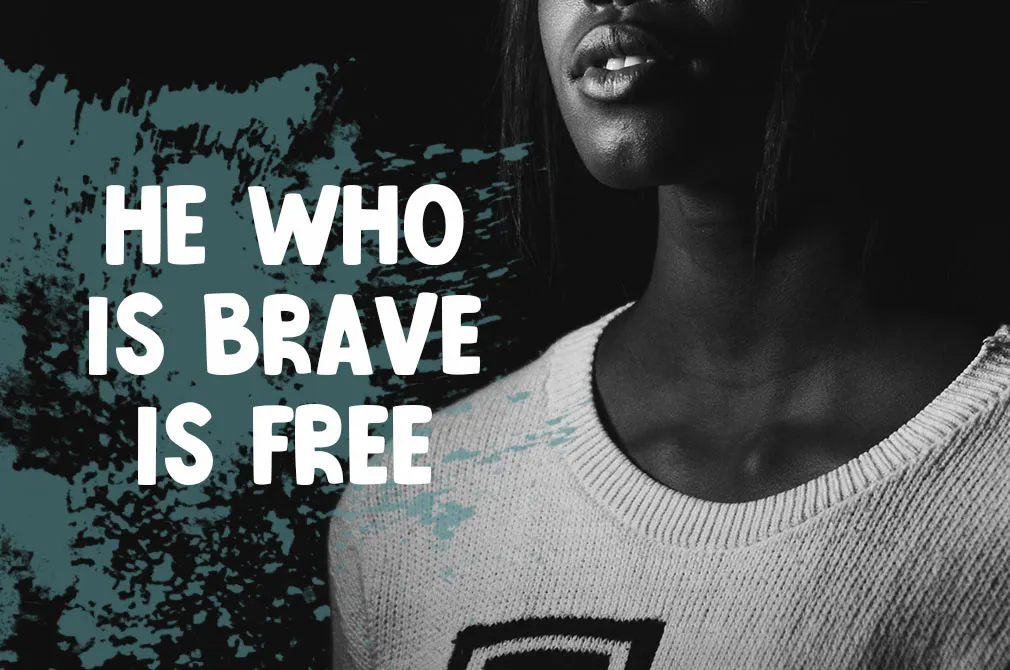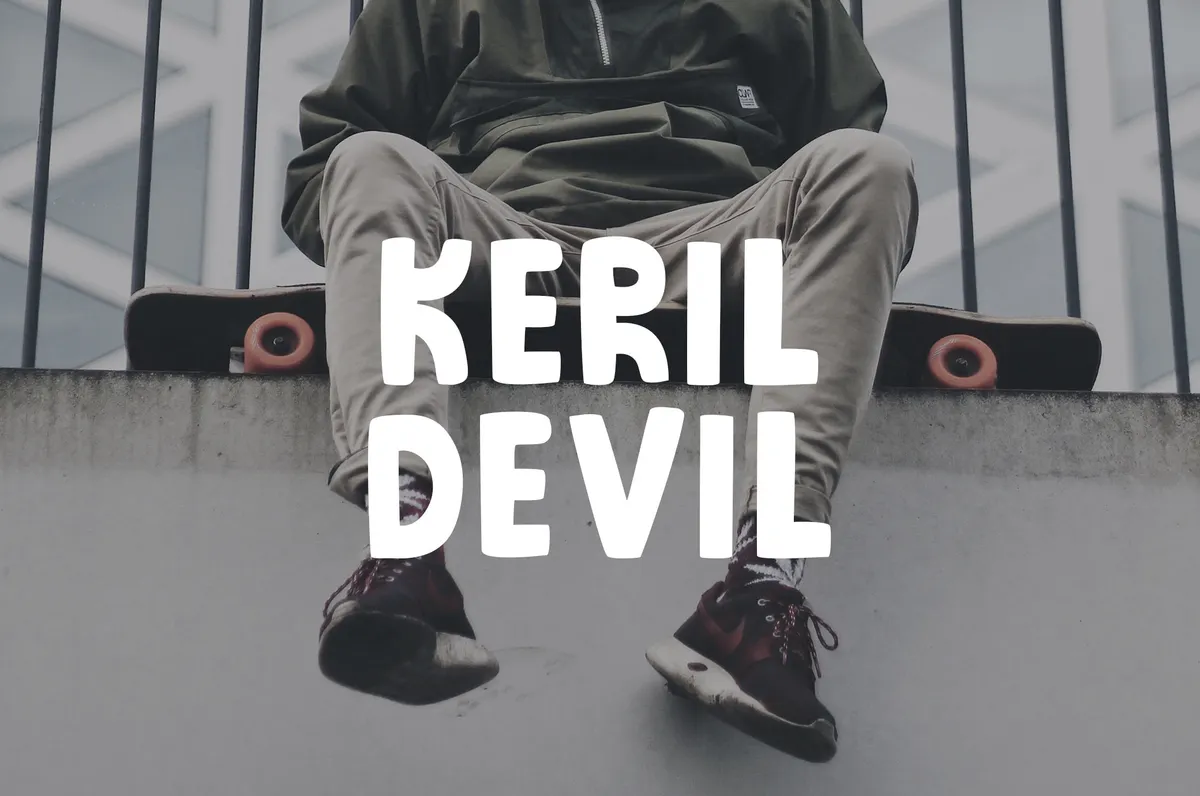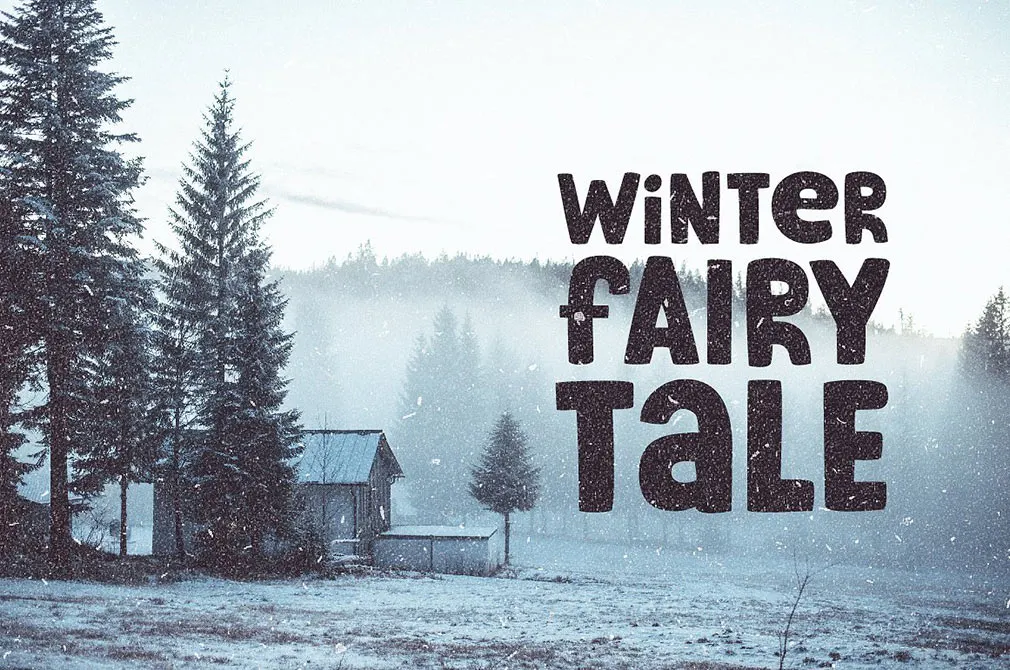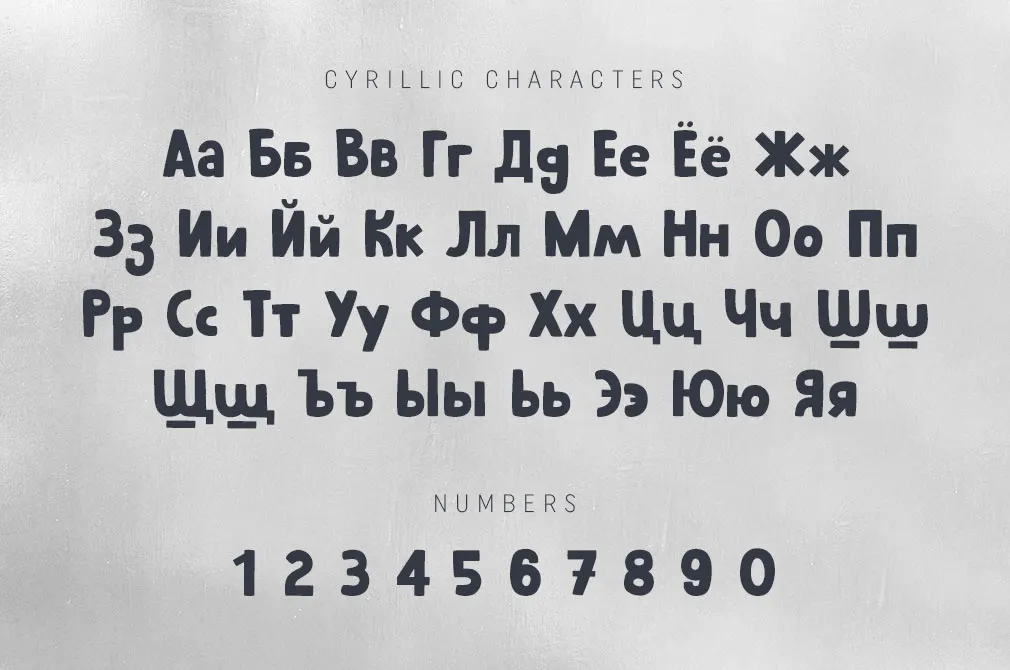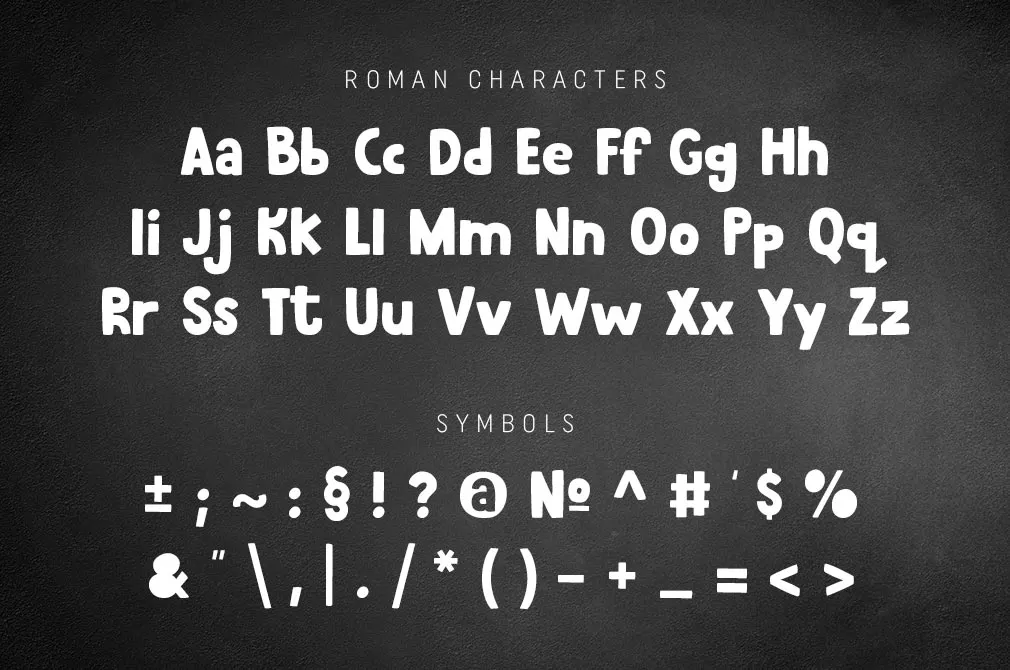
Keril Devil Display Typeface
This time get ready for a decent dose of a sans serif font! Cartoons and playfully designed greeting cards everything needs a touch of vibrancy, and were always happy to deliver tons of it to you.
Keril Devil is an extremely vibrant typeface aimed to complement your artwork websites, apps, product packaging, t-shirts, book covers with its strong personality no one will dare to leave unnoticed. And such handy features as a full set of lower & uppercase letters, punctuation, numerals, Cyrillic characters and multilingual support are to make your workflow not only fun but super smooth first. Include it into greeting cards, eye-popping posters and clothing design for a great effect!